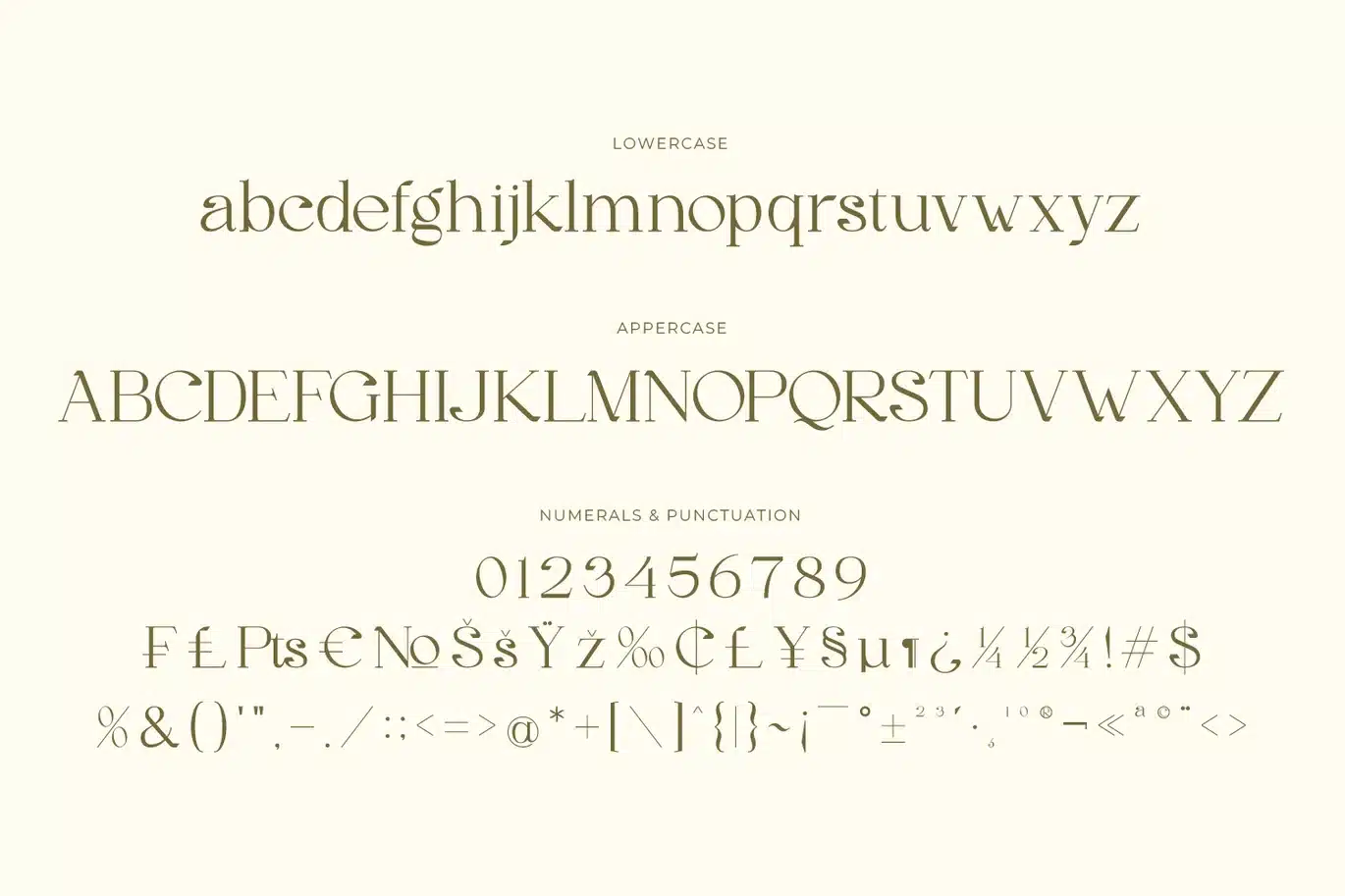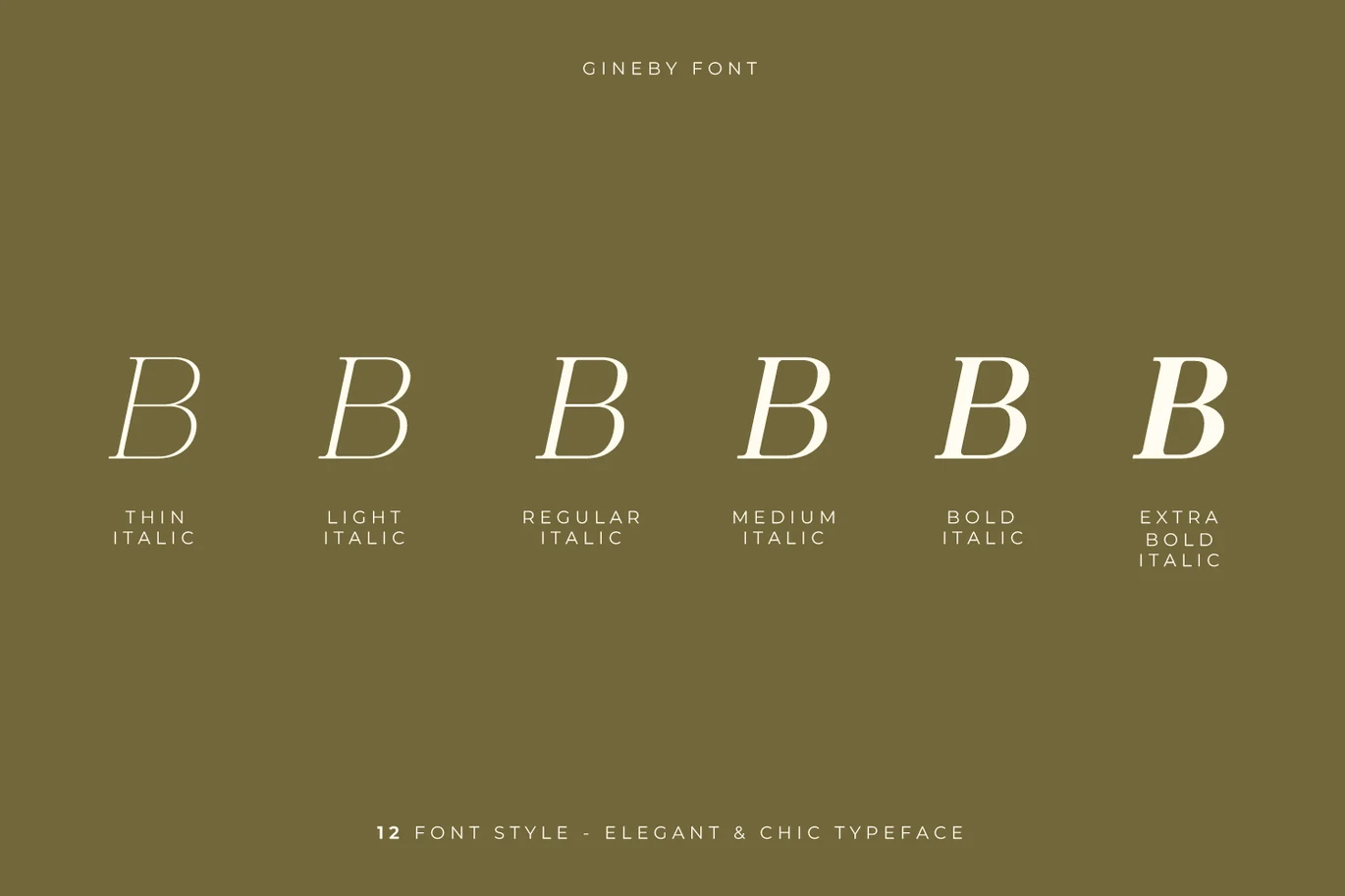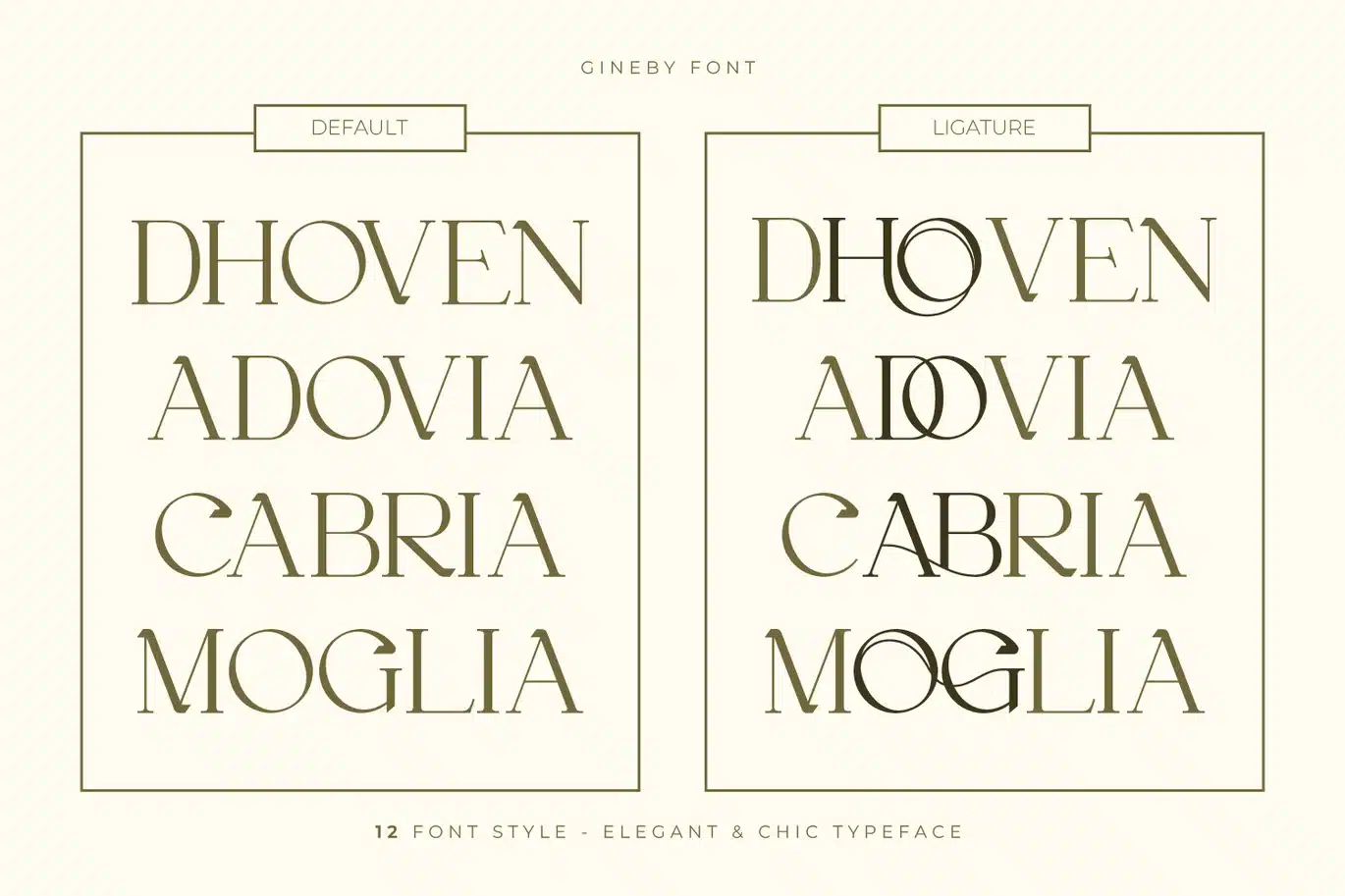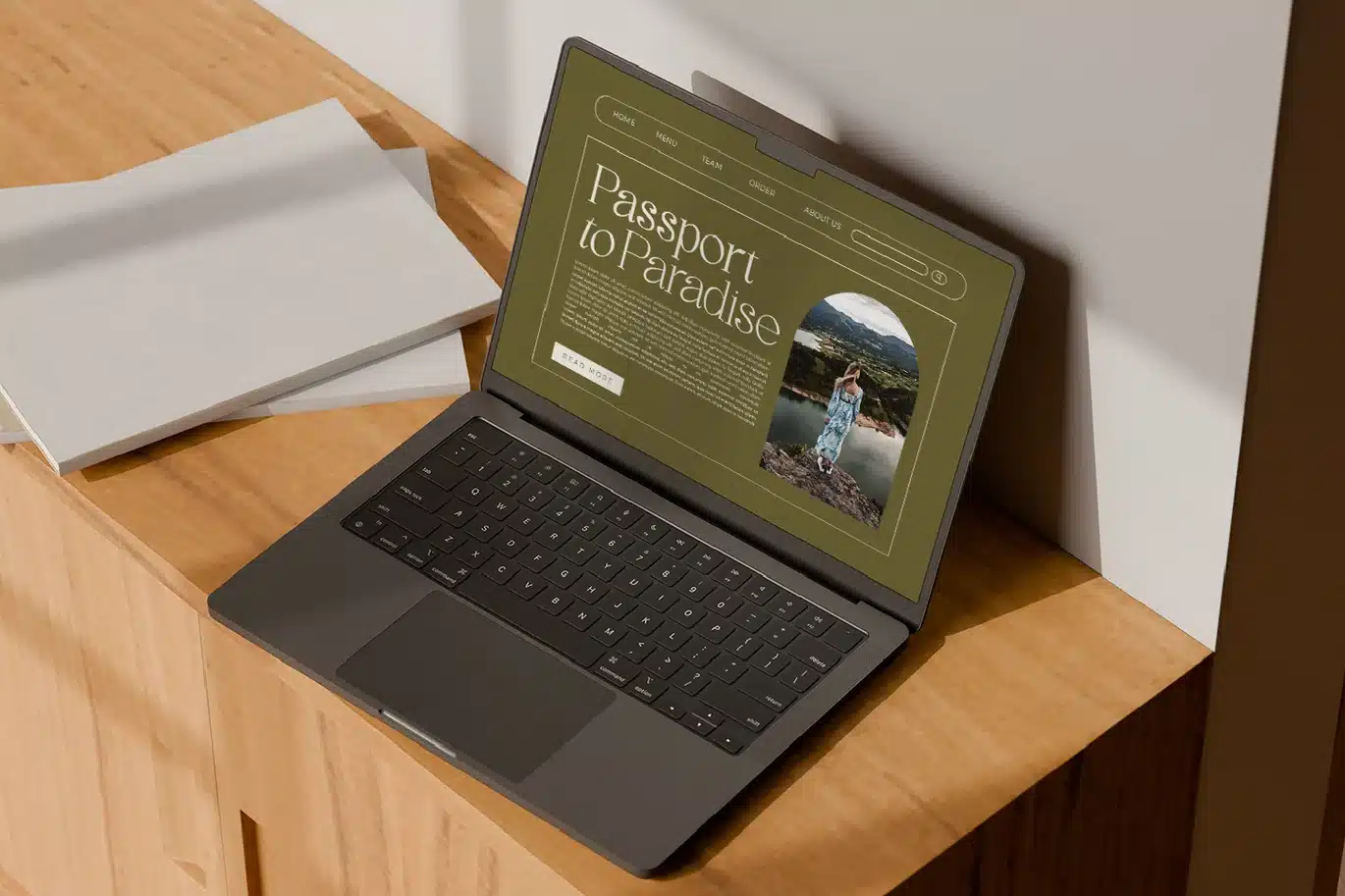
Gineby Font
Gineby - Serif Typeface Family Font, from Rishsketch Studios, is a premium Serif Typeface Family Font, perfect for any project that requires a distinctive, and premium feel.
Ligature, Alternate, & Multilingual